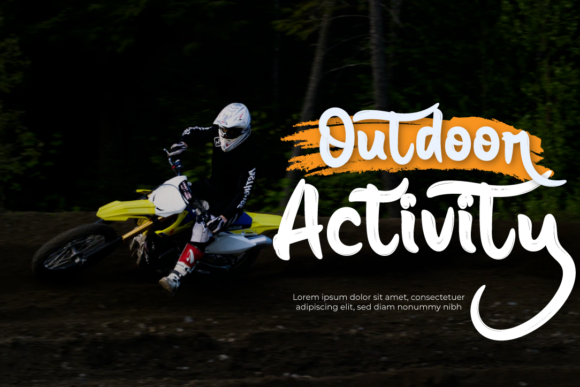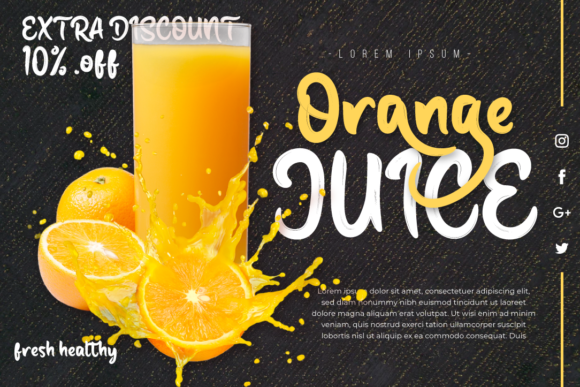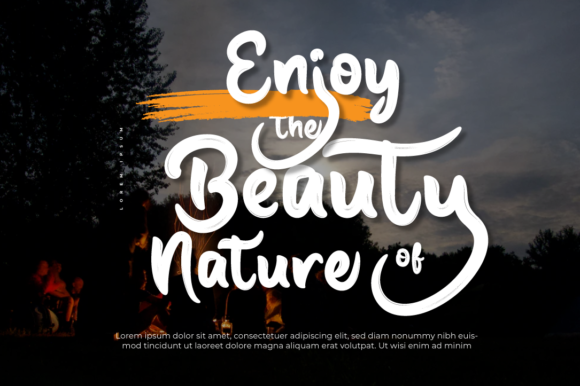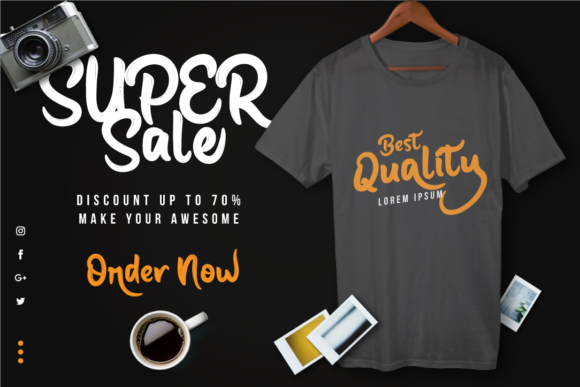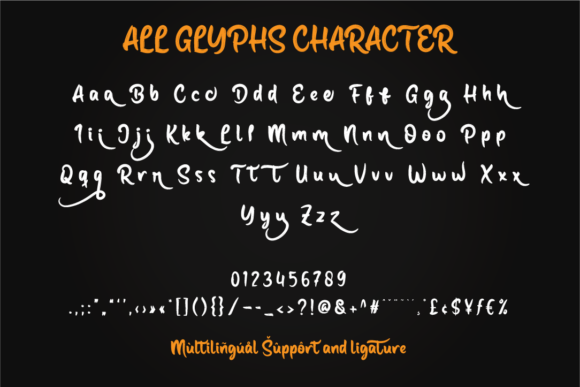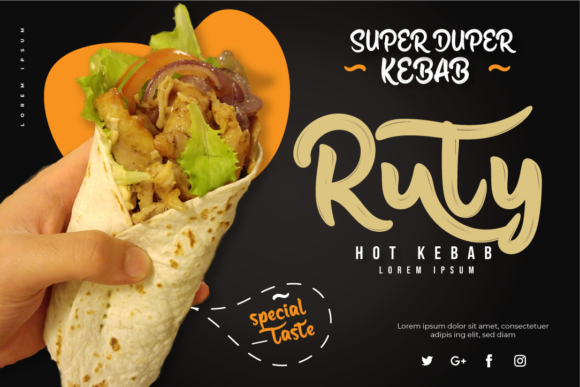
Introducing Daily Font: The Perfect Brush Handwritten Font for Your Creative Projects
Are you tired of using the same old fonts for your designs? Do you want to add a personal touch to your branding, advertising, and creative projects? Look no further than Daily Font, a beautiful brush handwritten font that’s perfect for making original and outstanding designs.
What is Daily Font?
Daily Font is a unique and stylish brush handwritten font that’s designed to help you create stunning designs. With its natural and effortless look, this font is perfect for a wide range of creative projects, from branding and advertising to posters, banners, and packaging.
Features of Daily Font
So, what makes Daily Font so special? Here are just a few of its key features:
- Handwritten style: Daily Font has a beautiful, handwritten style that’s perfect for adding a personal touch to your designs.
- Brush script: This font has a unique brush script style that’s reminiscent of traditional hand-painted signs and posters.
- Natural look: Daily Font has a natural, effortless look that’s perfect for creating designs that feel organic and authentic.
- Versatile: This font is incredibly versatile and can be used for a wide range of creative projects, from branding and advertising to posters, banners, and packaging.
What Can You Use Daily Font For?
Daily Font is a versatile font that can be used for a wide range of creative projects, including:
- Branding: Use Daily Font to create unique and memorable brand identities that stand out from the crowd.
- Advertising: This font is perfect for creating eye-catching ads that grab attention and leave a lasting impression.
- Posters and banners: Daily Font is a great choice for creating stunning posters and banners that showcase your message in a bold and eye-catching way.
- Packaging: Use this font to create beautiful and eye-catching packaging that stands out on store shelves.
- Podcasts: Daily Font is a great choice for creating podcast artwork that’s both stylish and attention-grabbing.
- Outdoor activities: This font is perfect for creating signs, banners, and other outdoor materials that need to withstand the elements.
- Apparel: Use Daily Font to create stylish and eye-catching apparel that showcases your brand or message.
- Quotes and inspirational messages: This font is a great choice for creating inspiring and motivational quotes that uplift and inspire.
- Beverages: Daily Font is perfect for creating labels, packaging, and marketing materials for beverages that need to stand out on store shelves.
Why Choose Daily Font?
So, why should you choose Daily Font for your creative projects? Here are just a few reasons:
- Unique and original: Daily Font is a one-of-a-kind font that’s sure to make your designs stand out from the crowd.
- High-quality: This font is designed to be clear and legible, even at small sizes.
- Versatile: This font can be used for a wide range of creative projects, from branding and advertising to posters, banners, and packaging.